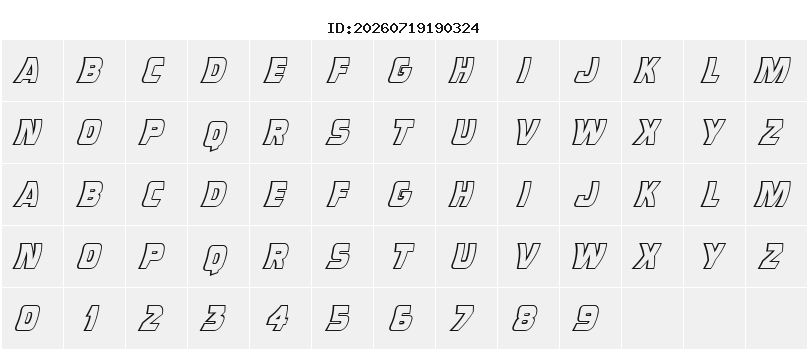
• Font Name: CC Double Back
About CC Double Back.ttf
CC Double Back.ttf is a modern, elegant sans-serif font designed for ultimate readability and visual harmony. Perfect for branding, headlines, web design, and print materials.